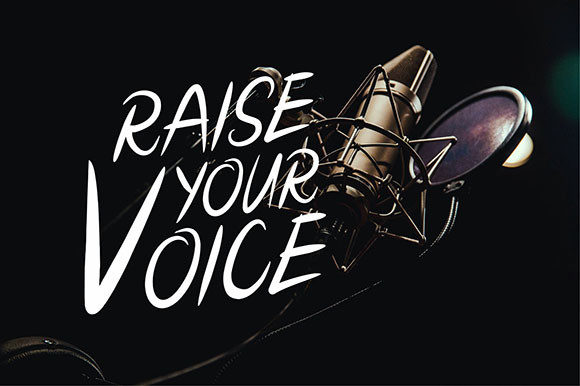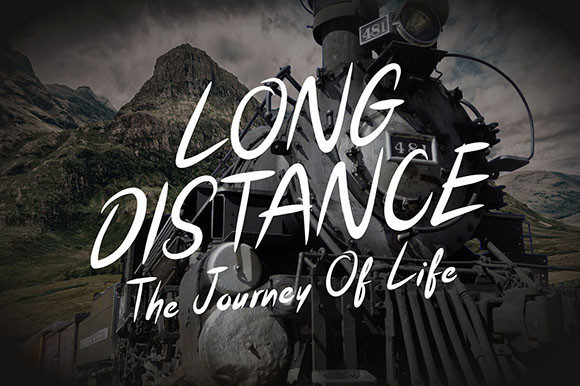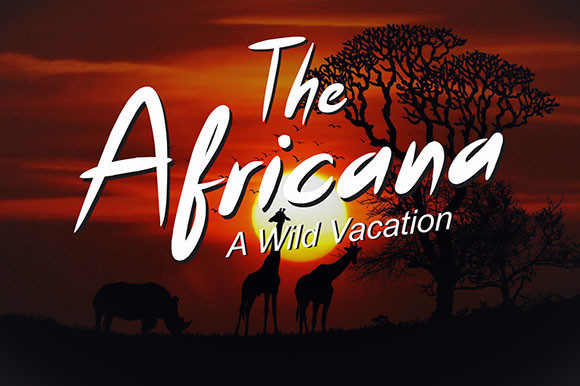
Deeproxx Font
About Deeproxx Font
Deeproxx is a fun, neat and relaxed handwritten font. It is suitable for logotype, headline font, in corporate identity, brand identity, apparel industry, poster, music, movie, game, magazine, book, comic, cartoon, YouTube, Instagram, website, or any of your creative design projects.